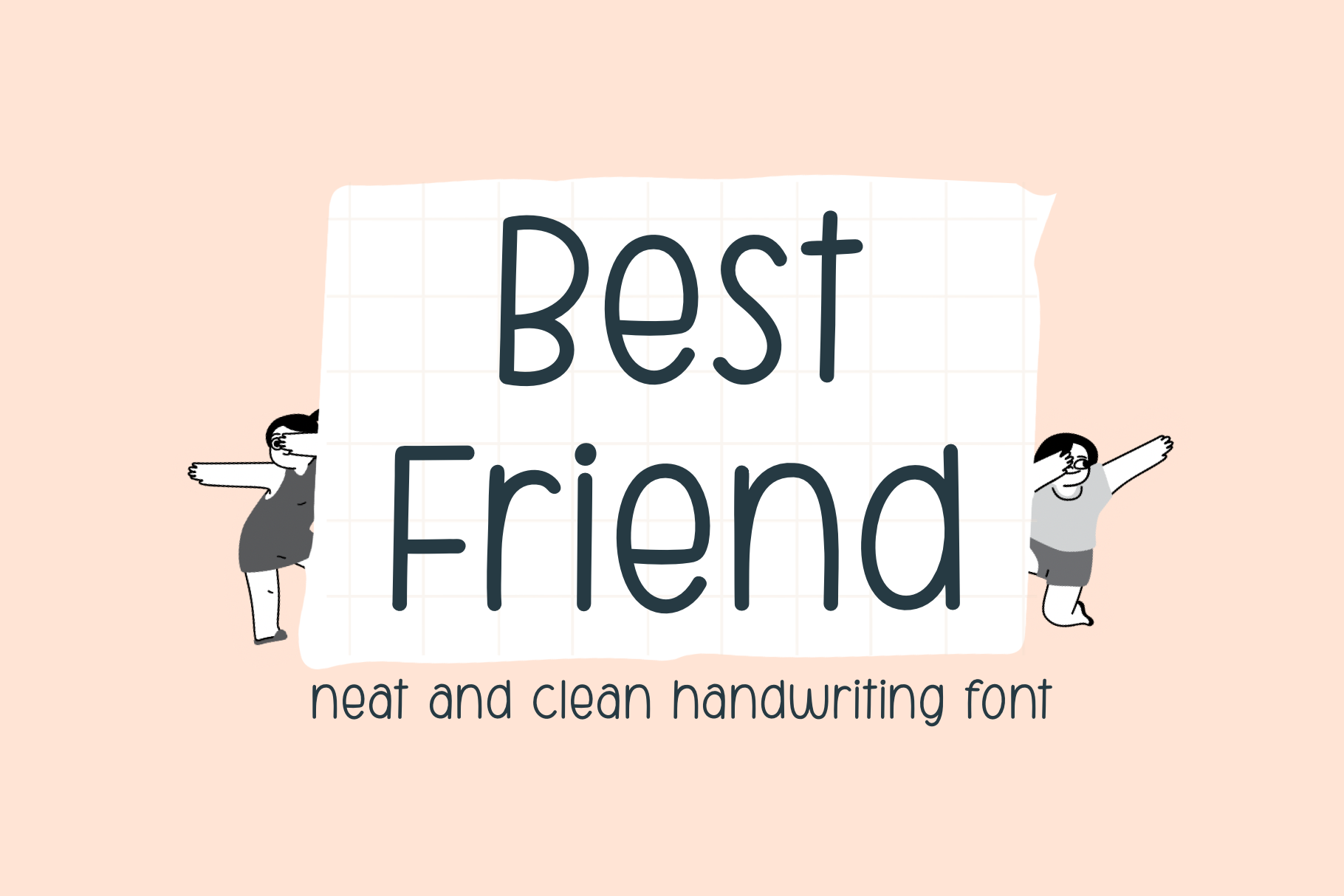
Best Friend clean handwriting font
Best Friend is a simple, clean and cute handwritten font. You can use this font in various projects - blog posts, digital planner, invitations, greeting cards, planners, photo albums, decorations and much more. Thank you :)